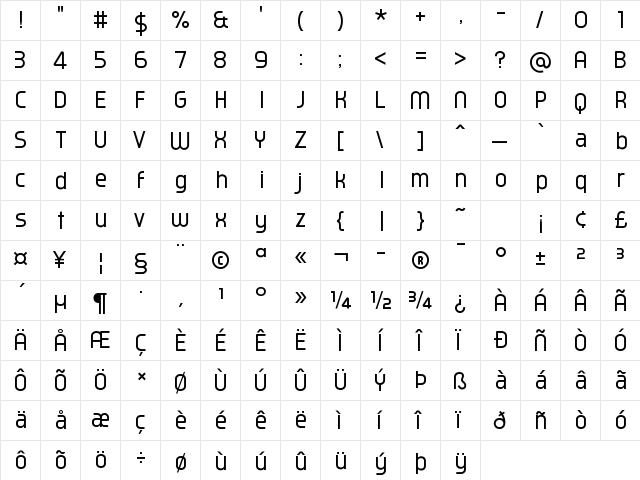
Typo Oval Demo Regular
Regular · StudioTypo Mehmet Abac ·
Design Context for Typo Oval Demo Typeface
Typo Oval Demo takes a measured approach to typography — its balanced proportions and neutral character make it a reliable workhorse for both digital and print work.